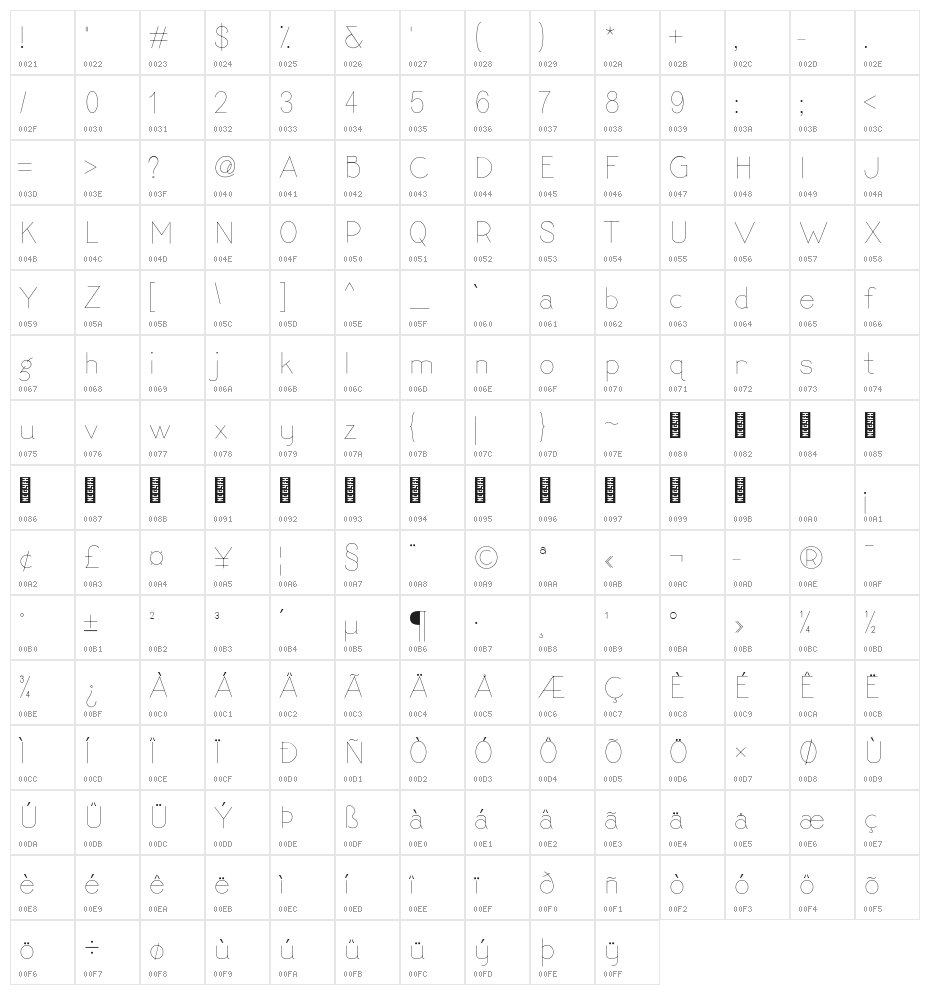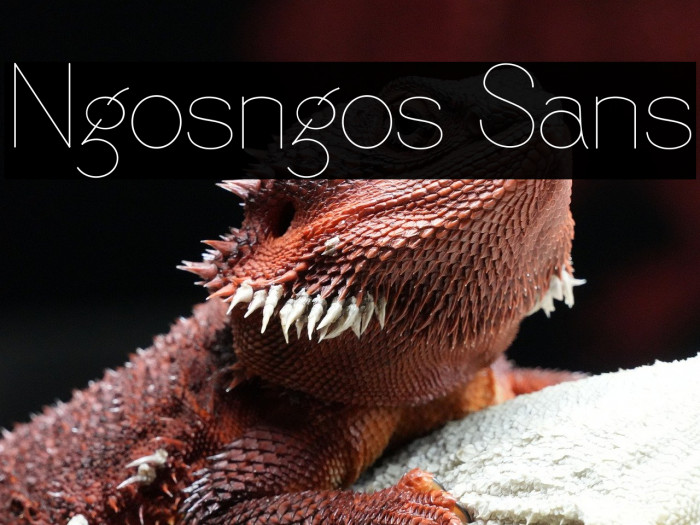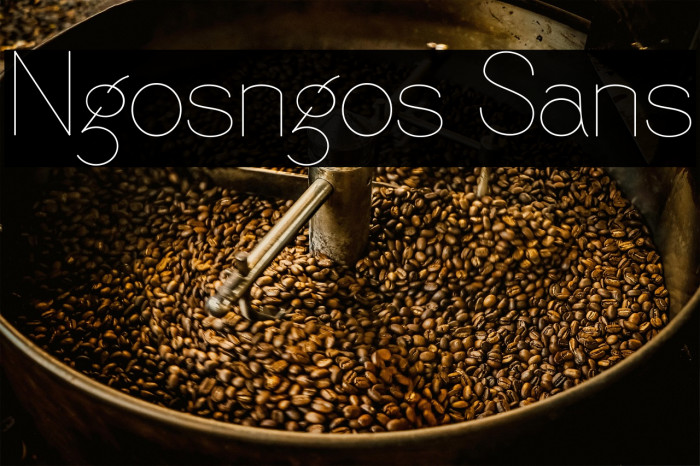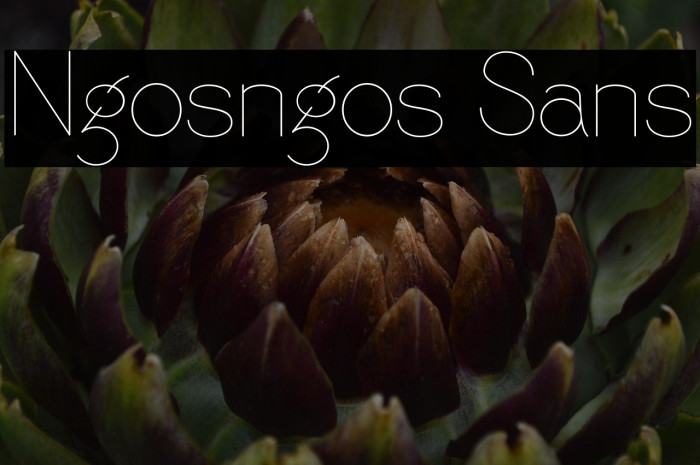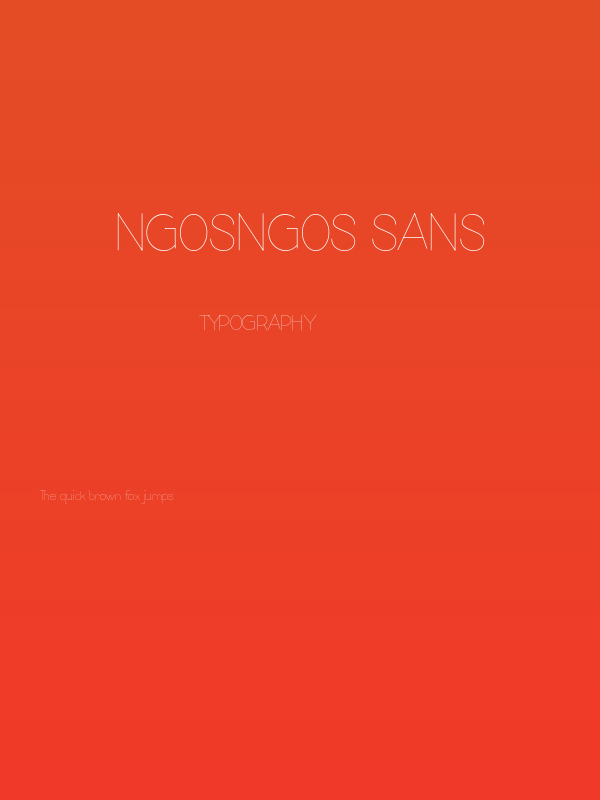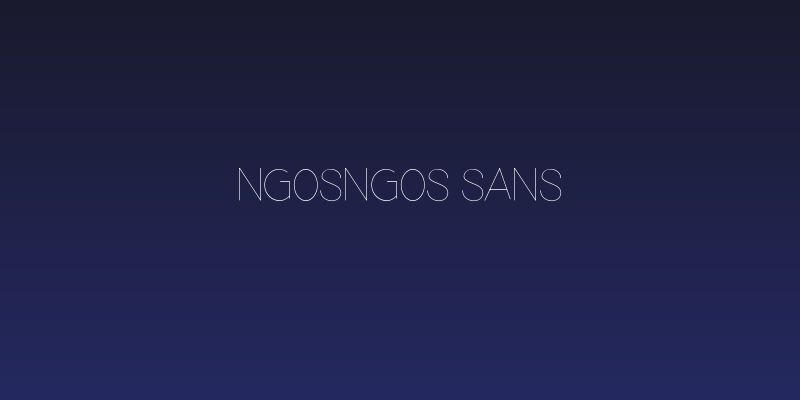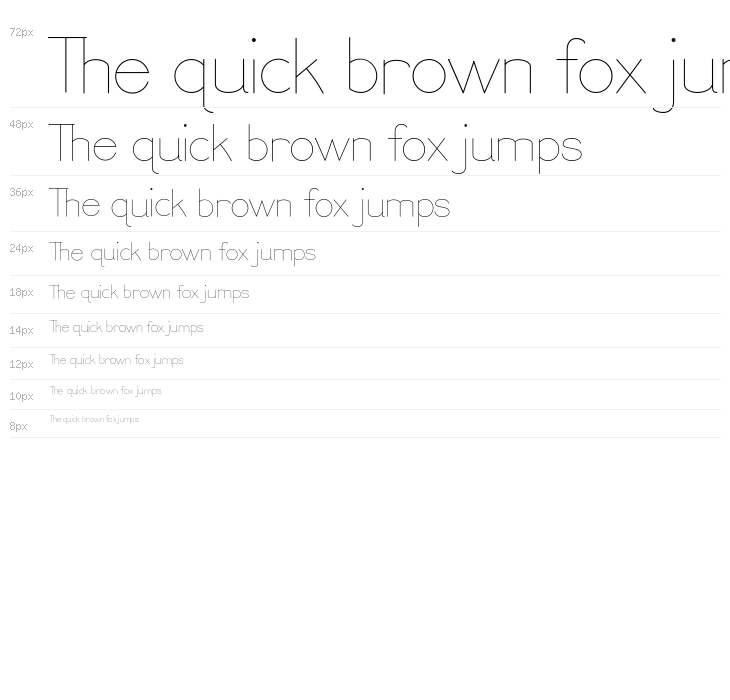
Ngosngos Sans Font
Ngosngos Sans Description
This font features a minimalist and geometric design, characterized by thin, consistent strokes and a modern aesthetic. The uppercase letters are tall and sleek, with a uniform height that creates a clean and orderly appearance. The lowercase letters maintain the same thin stroke, offering a harmonious balance with the uppercase set. Numbers are equally slender, enhancing the font's overall elegance. Special characters are designed with the same geometric precision, ensuring a cohesive look across all elements. The font's simplicity and clarity make it highly versatile for various design applications.
Use CaseHeadlines, Logos, Editorial design
Proposed ProjectsIdeal for modern branding, minimalist posters, sleek website headers, and contemporary editorial design.